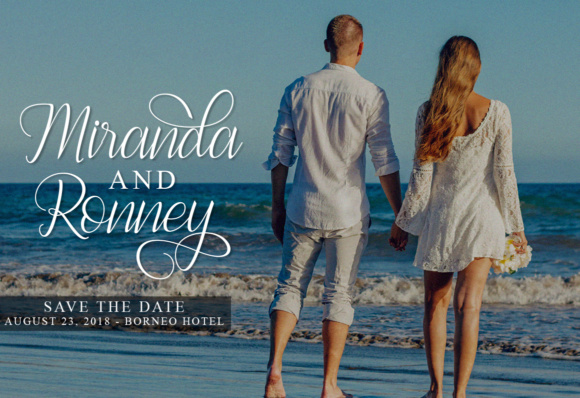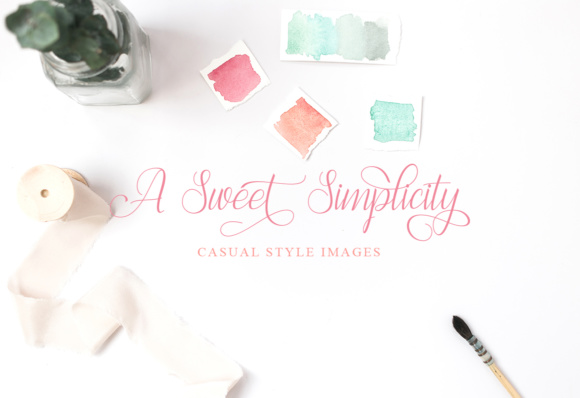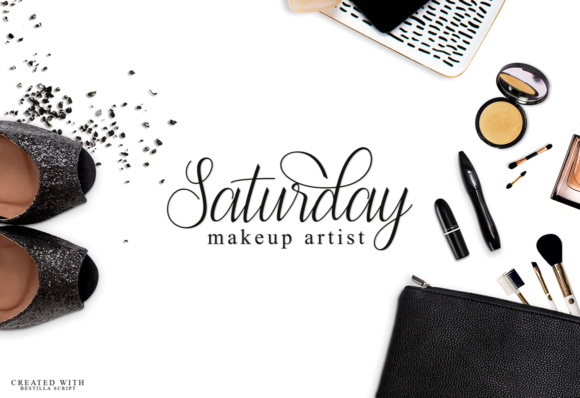
The Art of Beautiful Typography: Unveiling the Bestilla Font
There’s nothing quite like the feeling of scribbling out a new design idea, the scribble of pen on paper, the dance of ink as the words take shape. It’s in these moments that we’re reminded of the magic that happens when typography comes alive. For designers, the search for the perfect font is a never-ending quest, and we’re excited to introduce you to the latest addition to your arsenal: the stunning Bestilla Font.
With its gorgeous, swashy design and decorative characters, the Bestilla Font is a game-changer for anyone looking to add a touch of elegance to their work. Boasting an impressive 1,300+ glyphs, this font offers unparalleled flexibility and creativity, allowing you to craft truly unique calligraphy that sets you apart from the rest. Whether you’re a seasoned pro or just starting out, the Bestilla Font is a valuable tool that’s sure to elevate your designs to new heights.
Bestilla Font Key Features
- Font Family: Bestilla Font is a beautiful, elegant script font designed for use in various contexts, including digital and print media.
- Character Set: Includes a wide range of characters, including uppercase and lowercase letters, numbers, and punctuation marks, as well as various language-specific characters.
- Unique Characteristics: Bestilla Font features a unique, hand-drawn aesthetic with intricate details and flourishes, making it ideal for creating visually striking designs and typography.
Designer Review: Bestilla Font
I recently had the chance to work with the Bestilla font, and I’m excited to share my honest review with you. ✨ One of the things that stands out about Bestilla is its elegant, cursive script. The font is perfect for any project that requires a touch of sophistication and whimsy. The ligatures and connections between letters are seamless, making it a joy to read.
Another thing that I appreciate about Bestilla is its versatility. It’s suitable for a wide range of applications, from wedding invitations to branding materials. The font comes in a variety of weights, from light to bold, which allows for a lot of creative flexibility.
- ⚠️ The font may not be the best choice for text-heavy content, as the cursive script can make it difficult to read in large blocks of text.
- ⚠️ Some users may find the font to be too ornate or overly decorative, which can be a drawback in certain design contexts.
Overall, I’m impressed with the Bestilla font. It’s a beautiful, elegant script that can add a touch of sophistication to any project. While it may have some limitations, I believe that it’s a valuable addition to any designer’s toolkit. With careful use and consideration, Bestilla can help you create truly stunning designs that capture the attention of your audience.
The Bestilla Font is a versatile font that can be used in various design projects. Here are some tips and common use cases:
- Use Bestilla Font for headings and titles to add a touch of elegance and sophistication.
- Use Bestilla Font for social media graphics and advertisements to grab attention and create a lasting impression.
Alternatives to Bestilla Font
Great Vibes Font is a modern, elegant script font. It’s perfect for designs that require a touch of sophistication and elegance. Use it for wedding invitations, luxury branding, or any project that demands a high-end feel.
Great Vibes Font is more elegant and refined compared to Bestilla Font, which has a more rustic and vintage feel. Great Vibes Font is ideal for projects that require a more polished and sophisticated look.